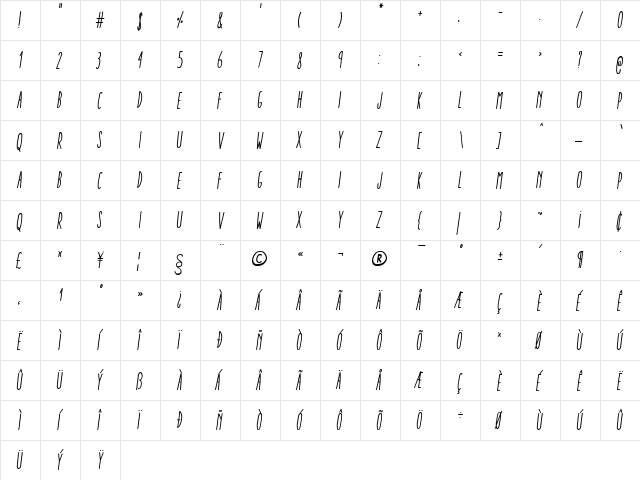
Aracne Ultra Condensed Regular Italic Ultra-condensed Regular Italic
Ultra-condensed Regular Italic · Julia Martinez Diana, Antipixel. Julia Martinez Diana, Antipixel ·
Design Context for Aracne Ultra Condensed Regular Italic Typeface
Aracne Ultra Condensed Regular Italic takes a measured approach to typography — its balanced proportions and neutral character make it a reliable workhorse for both digital and print work. The slanted form adds forward momentum and visual energy. The condensed width makes it efficient for tight spaces without sacrificing legibility.
Pro Tip: Try Aracne Ultra Condensed Regular Italic for annotation and caption copy alongside an upright companion — the contrast in angle creates a dynamic but ordered typographic system.